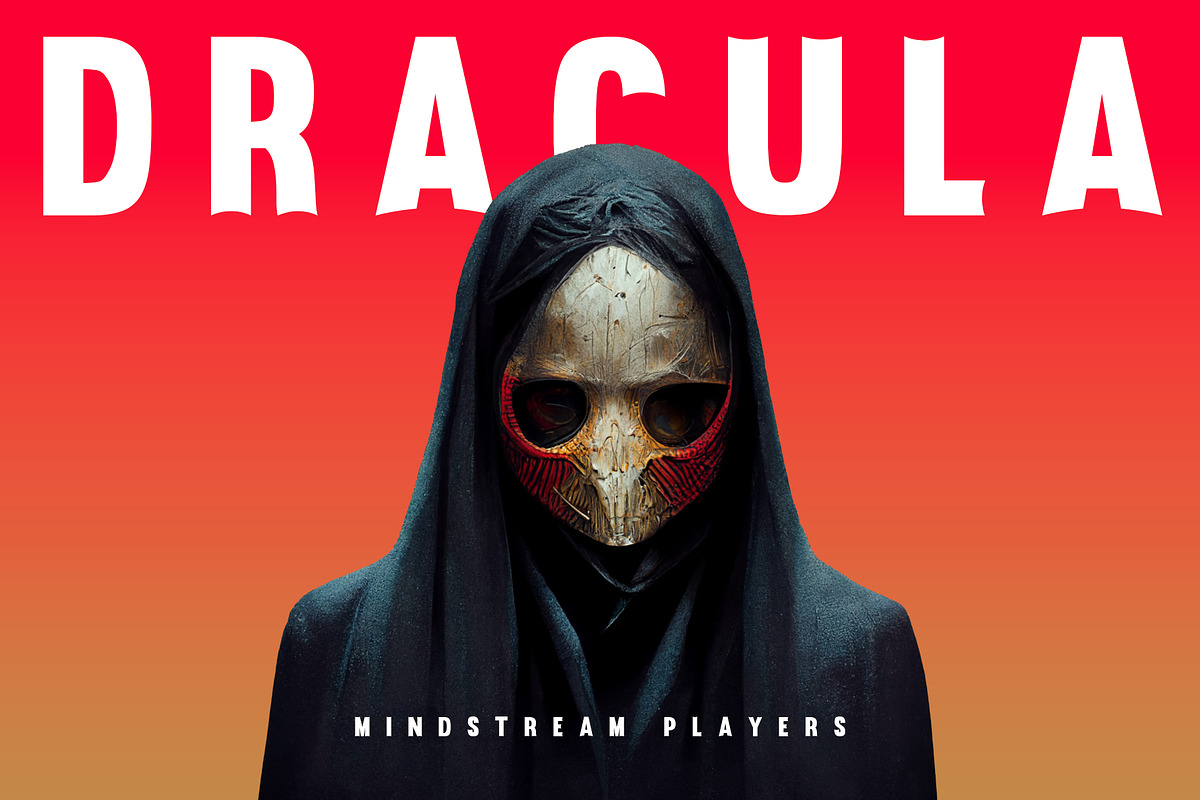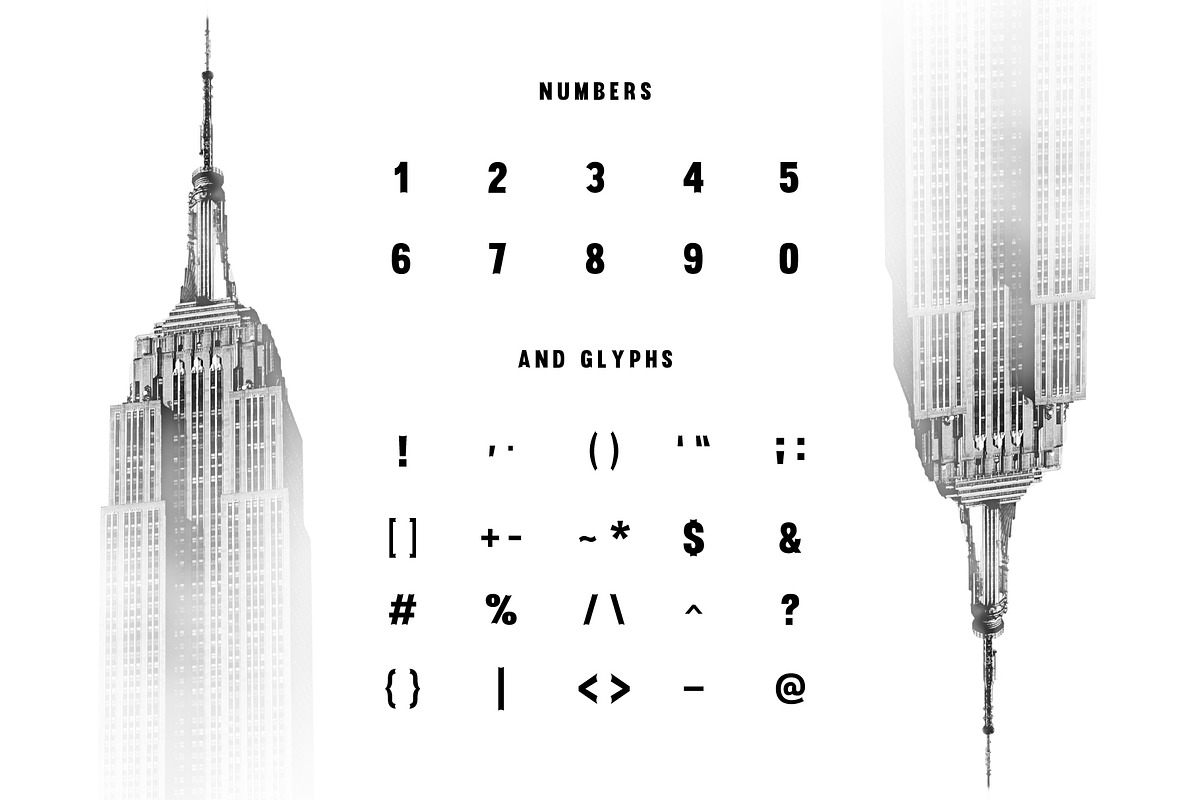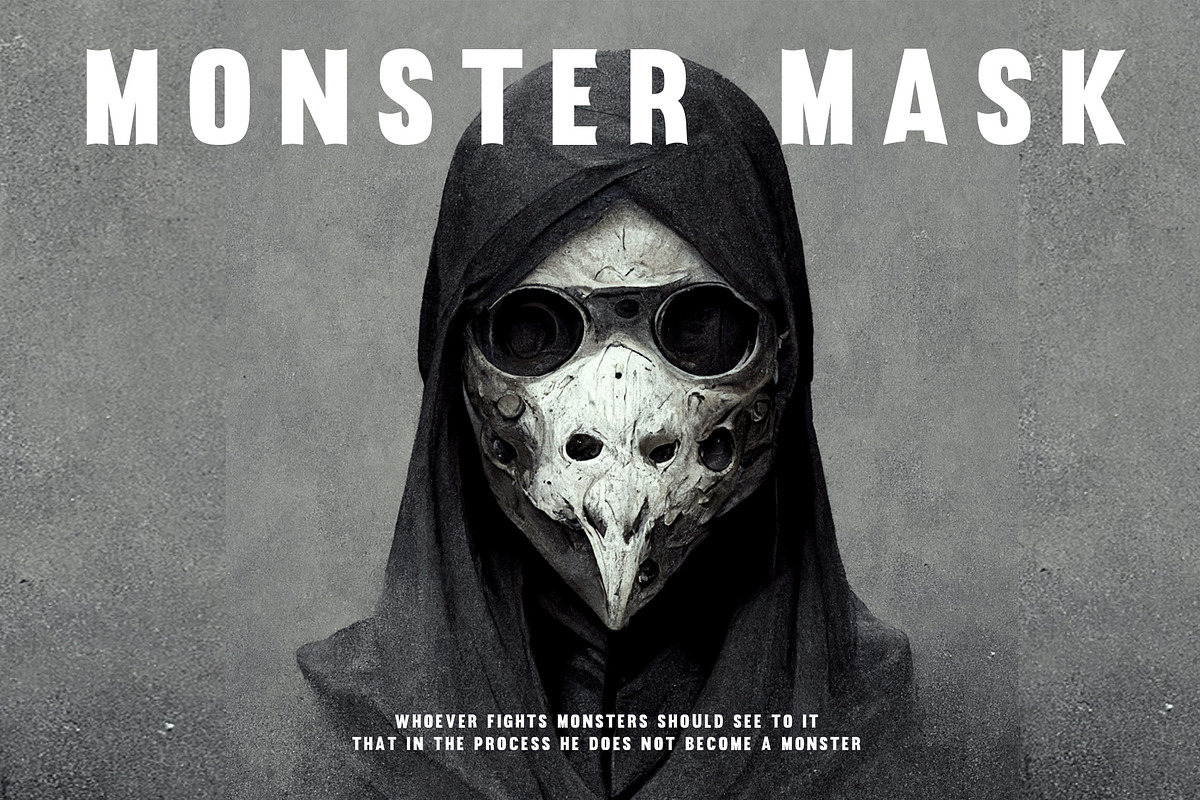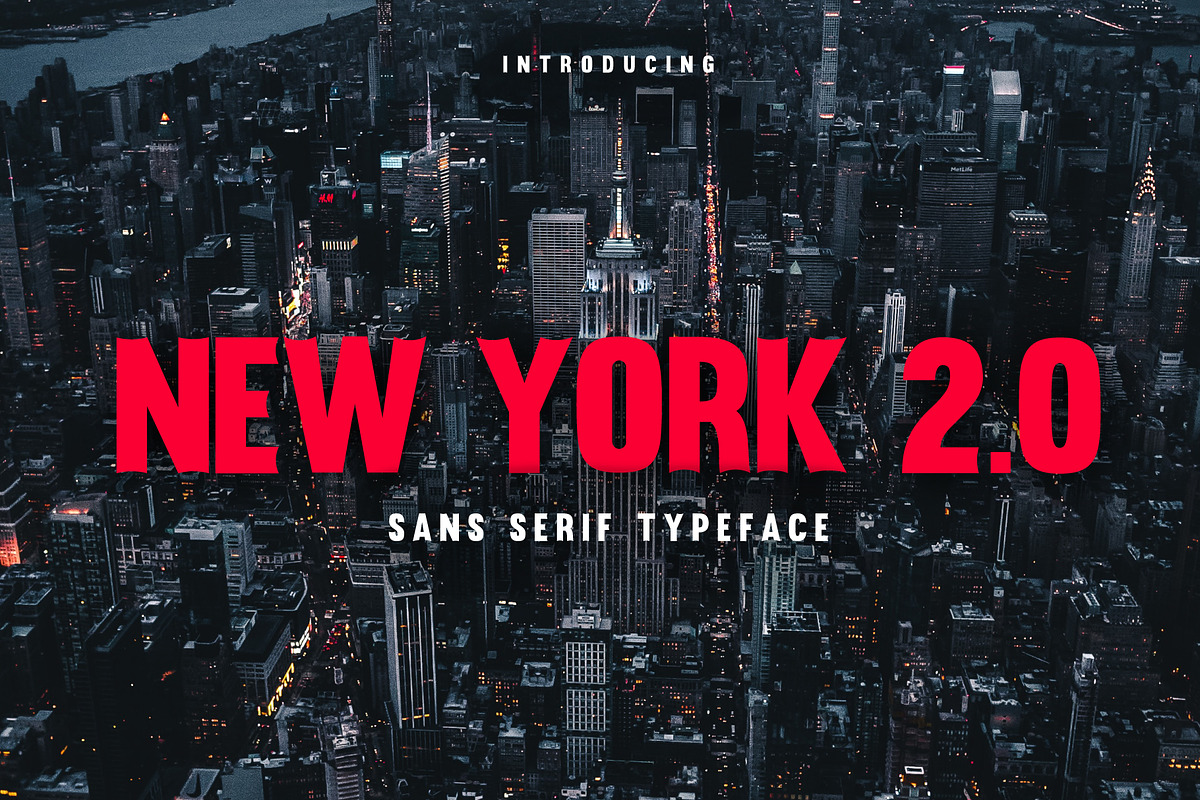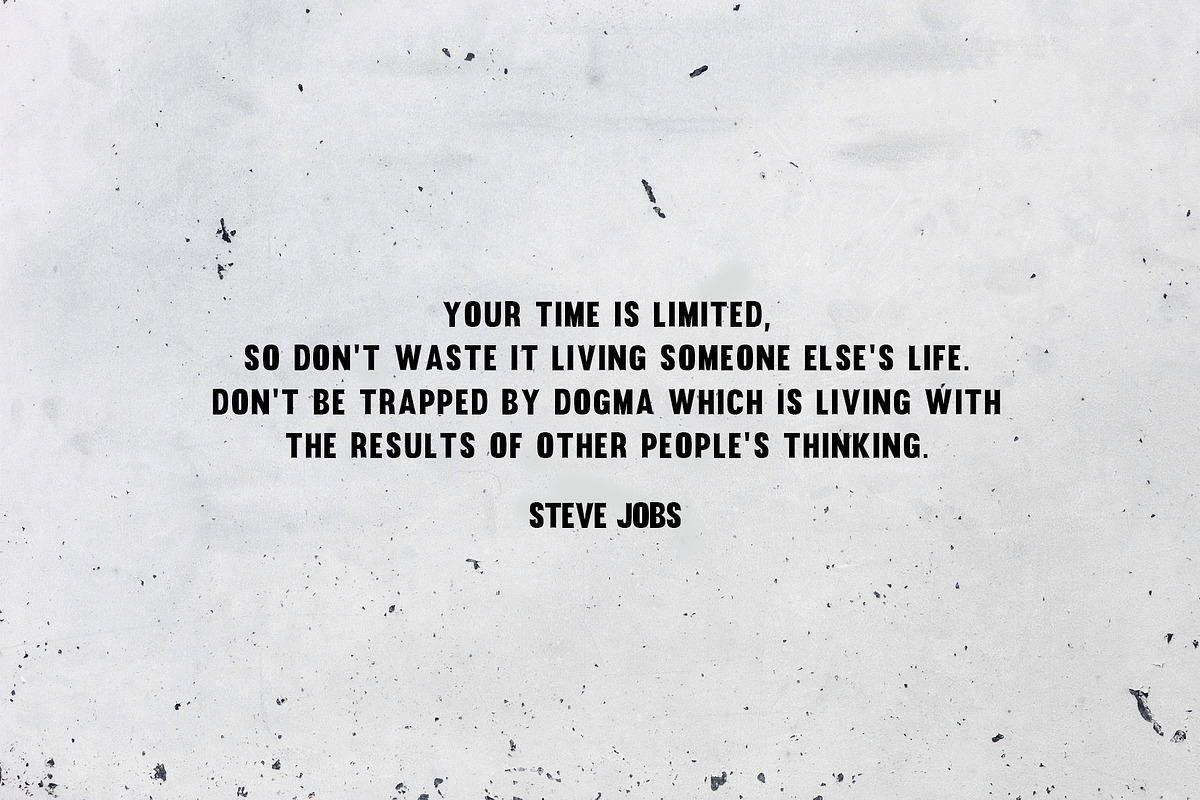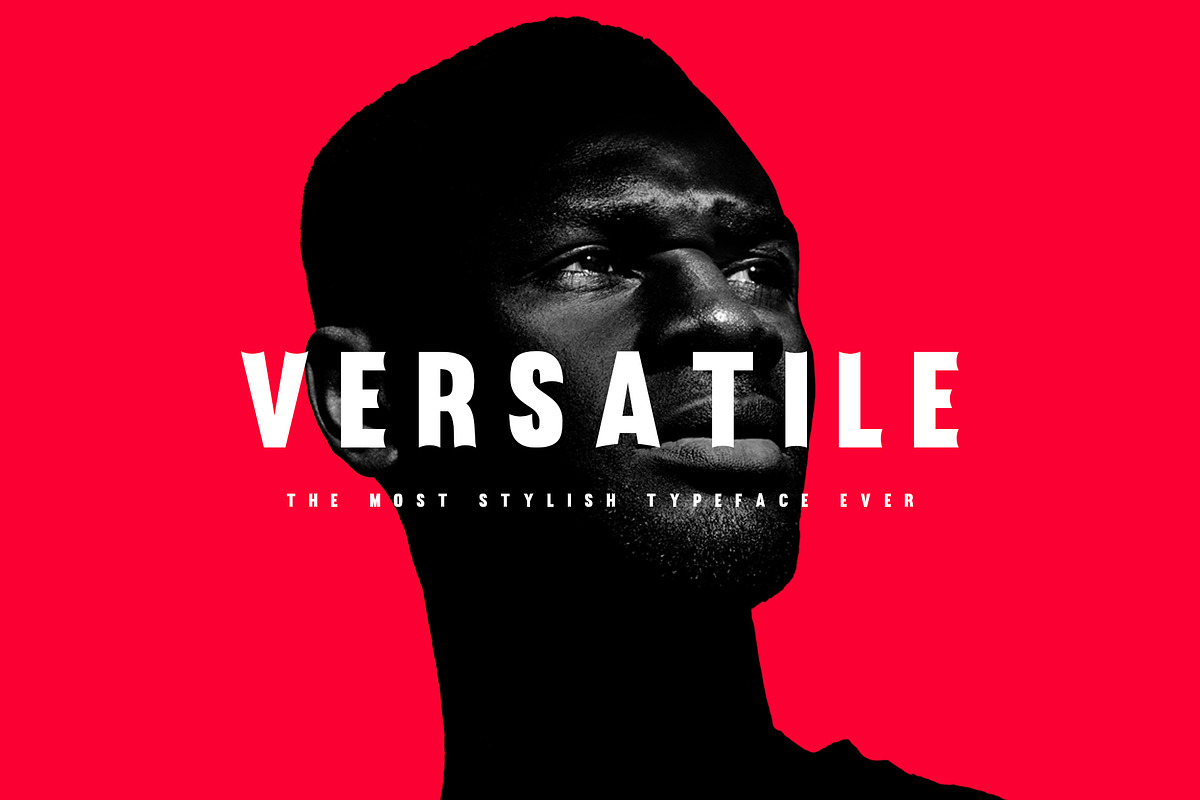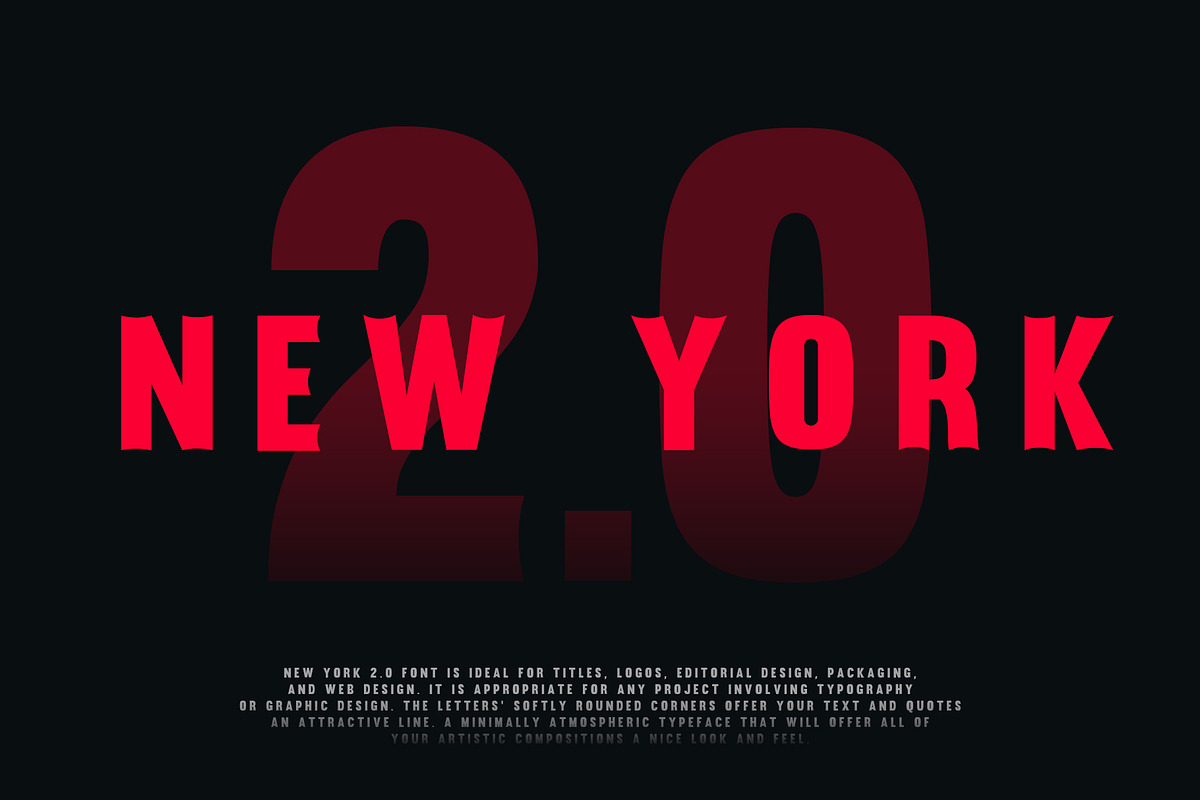
New York 2.0 - Sans Serif Typeface
New York 2.0 font is ideal for titles, logos, editorial design, packaging, and web design. It is appropriate for any project involving typography or graphic design. The letters' softly rounded corners offer your text and quotes an attractive line. a minimally atmospheric typeface that will offer all of your artistic compositions a nice look and feel.
Uppercase Characters & Lowercase Characters (Same)